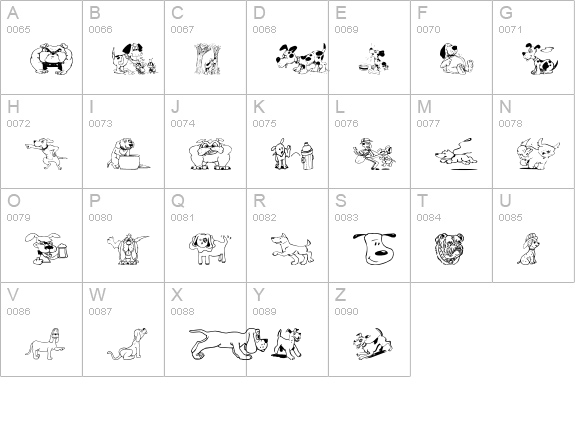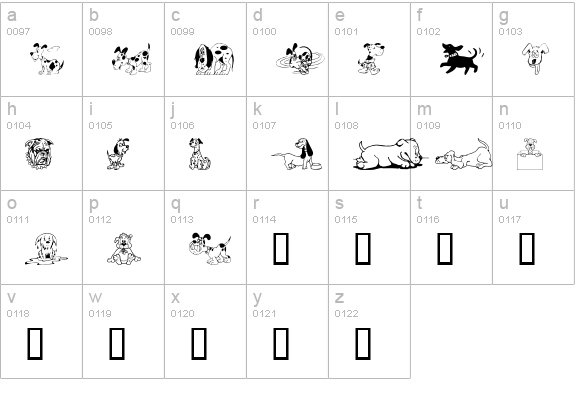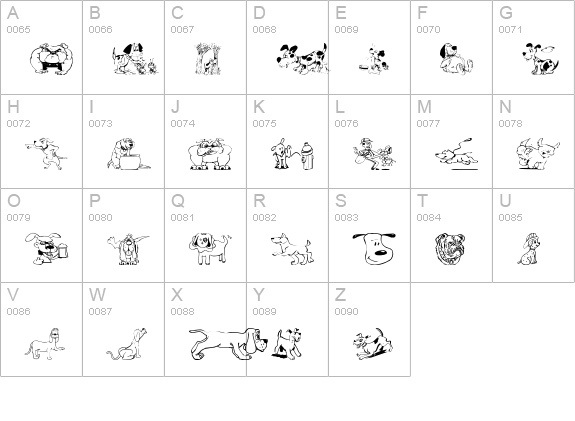
Doggon Font Details
Introducing Doggon font, a charming and playful typeface that is sure to add a touch of whimsy to your design projects. This delightful font features quirky letterforms with a hand-drawn feel, perfect for creating eye-catching headlines, posters, and invitations. What sets Doggon font apart is not just its unique design, but also the fact that it is available for free download at FontsMarket.com. Yes, you read that right - this fun and versatile font can be yours at no cost, making it a fantastic choice for budget-conscious designers looking to add a creative flair to their work. Whether you're working on a personal project or a client commission, Doggon font is a fantastic addition to your font library. So why wait? Head over to FontsMarket.com today and download Doggon font for free to start adding a touch of whimsical charm to your designs!